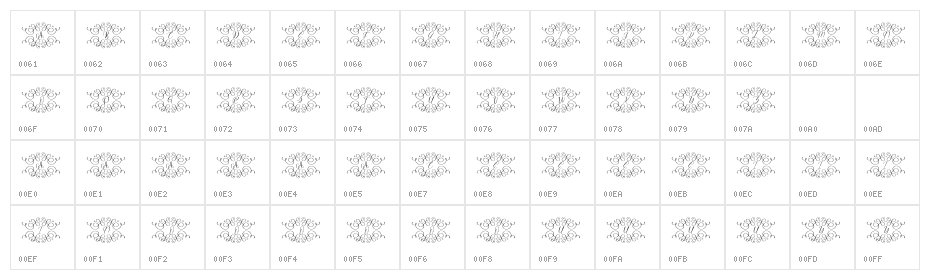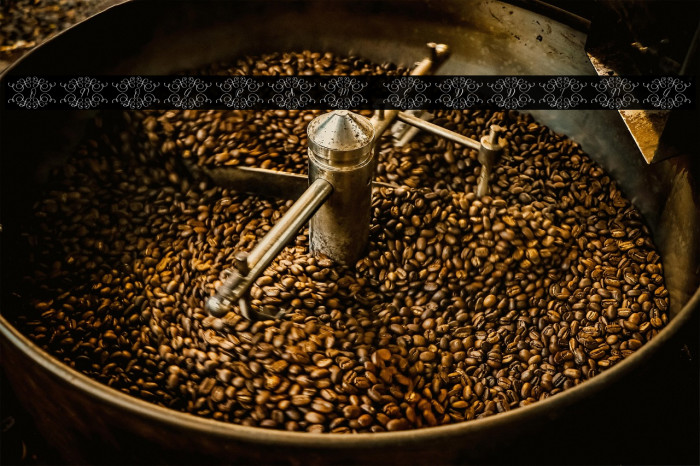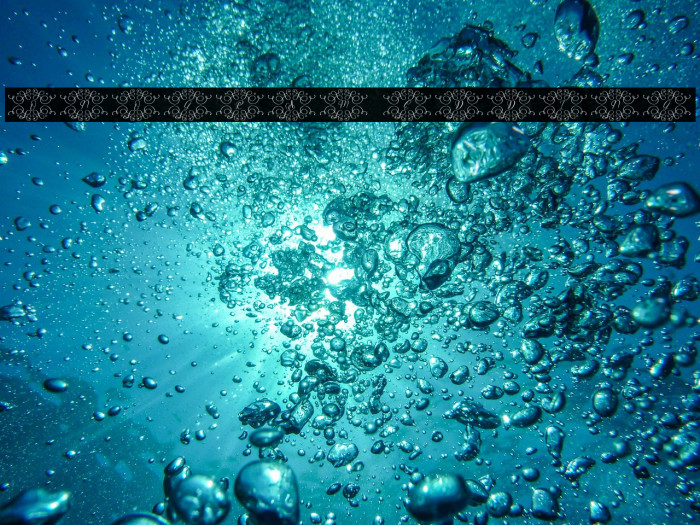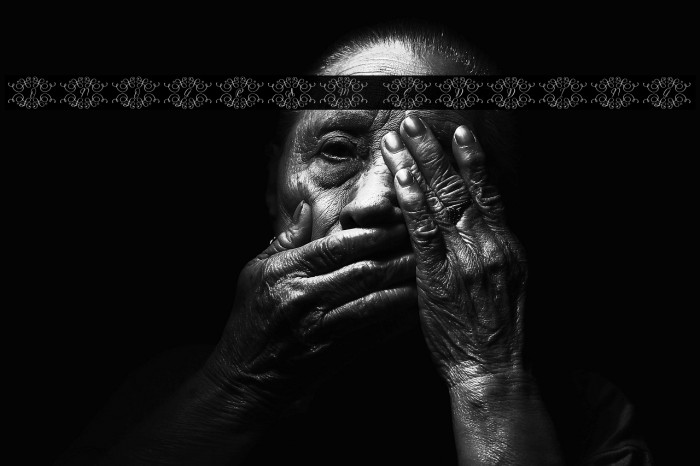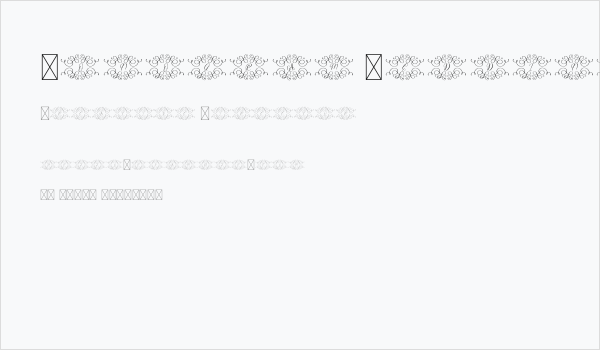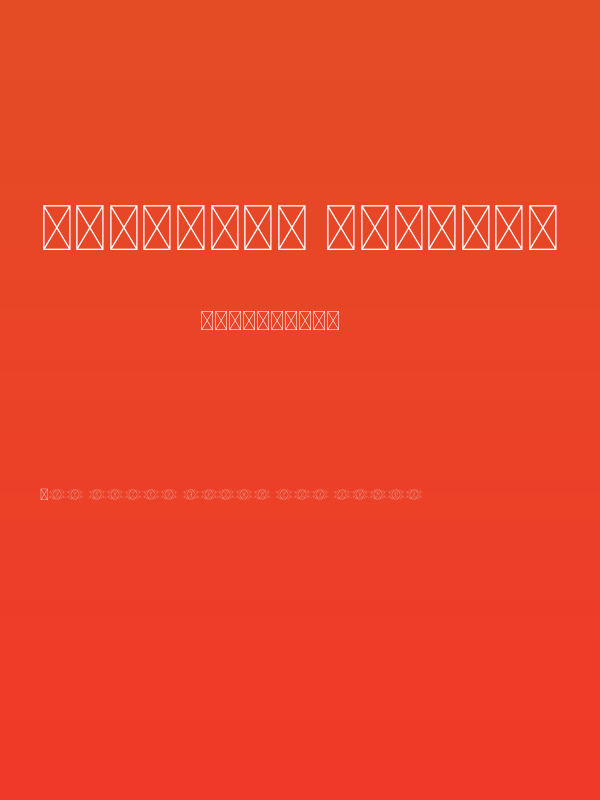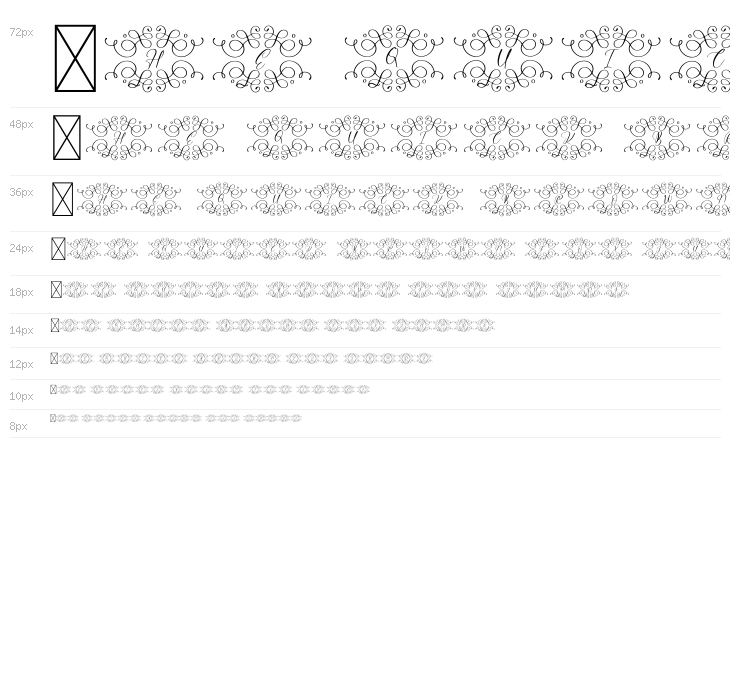
Monogram Wedding Font
Monogram Wedding Description
Elegant decorative font featuring ornate flourishes and monogram-style letterforms, ideal for formal occasions. The characters are embellished with intricate swashes and symmetrical details, creating a refined and sophisticated appearance.
| Overall Style | Decorative, Elegant, Vintage |
| Use Case | Monograms, Invitations, Decorative headings |
| Proposed Projects | Wedding invitations, event stationery, luxury branding, certificates, decorative initials. |